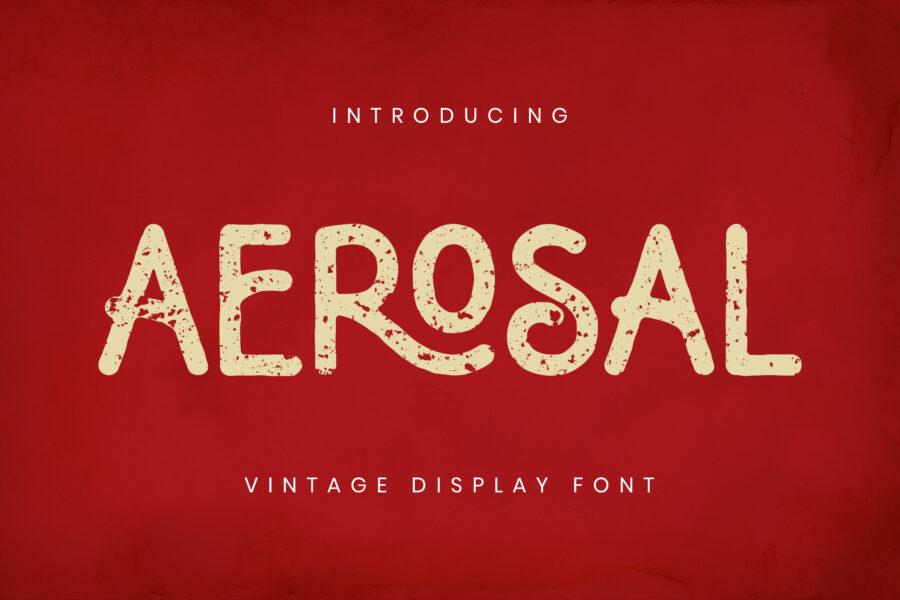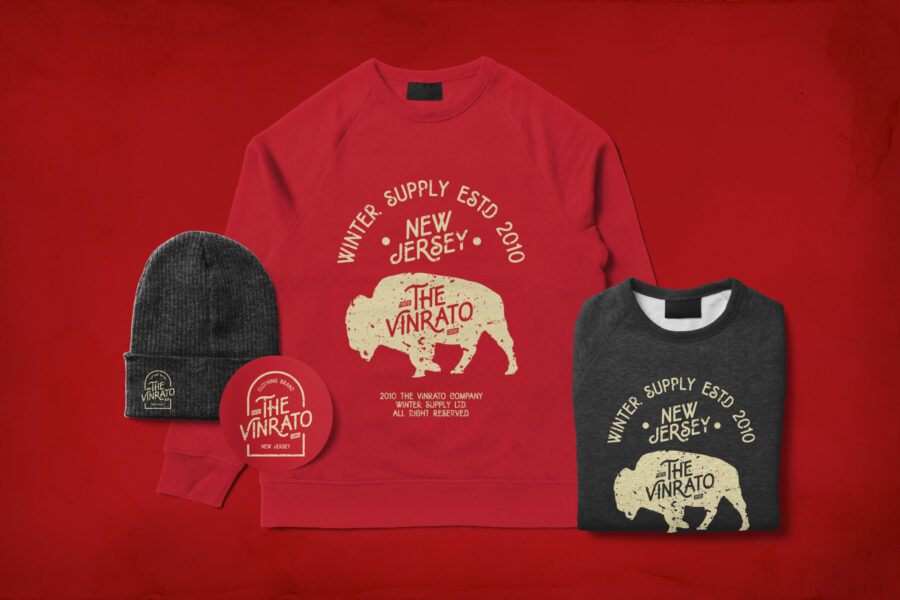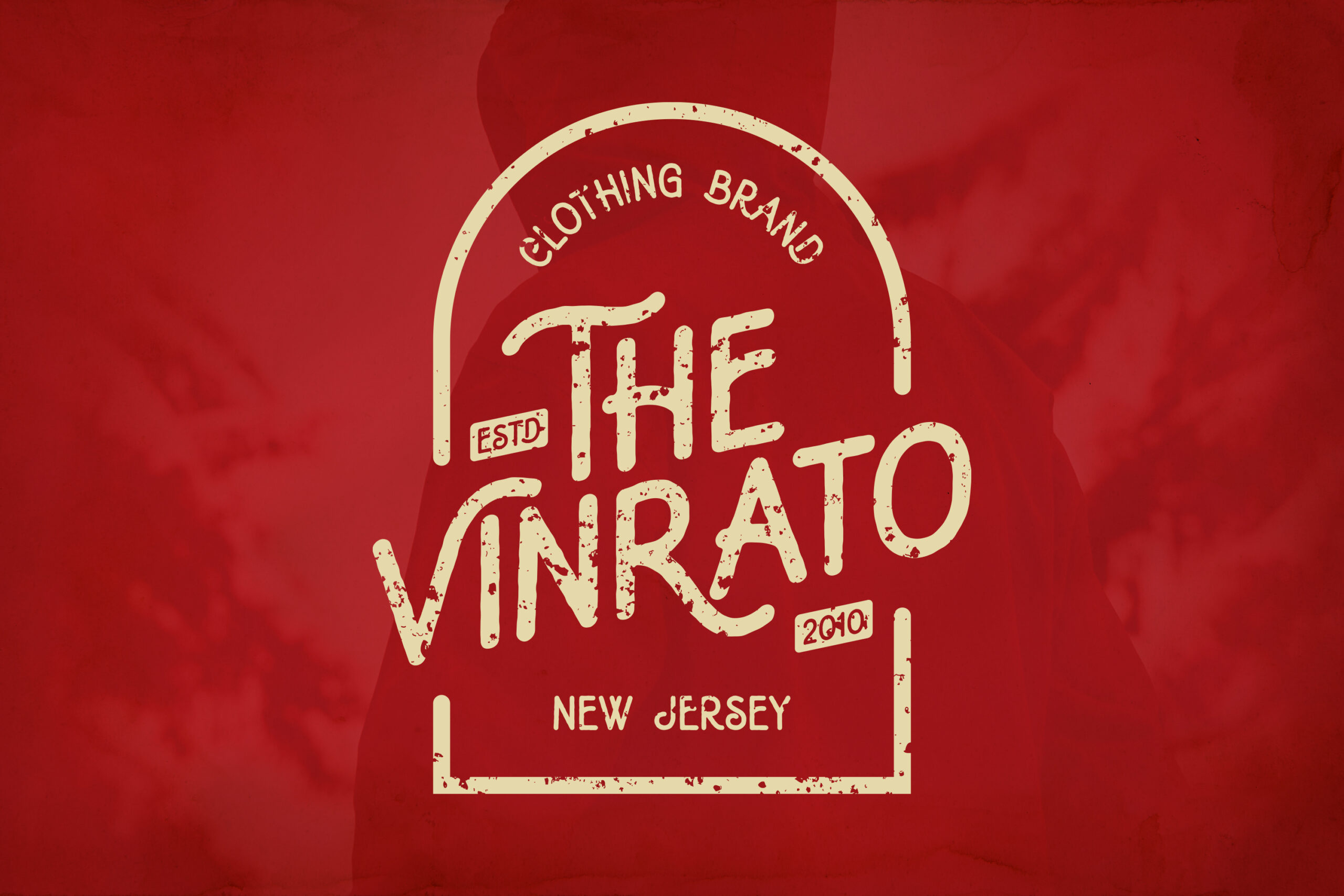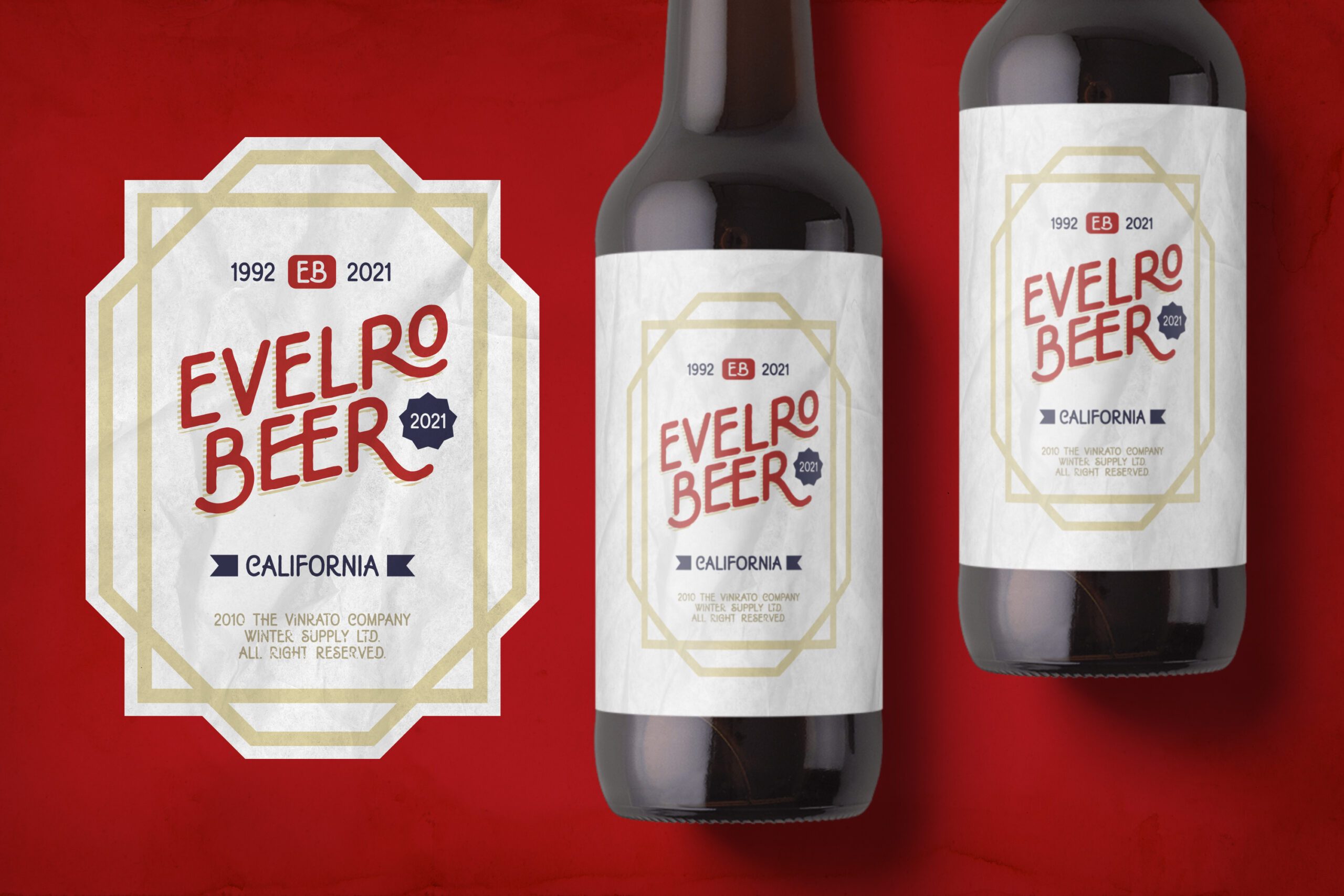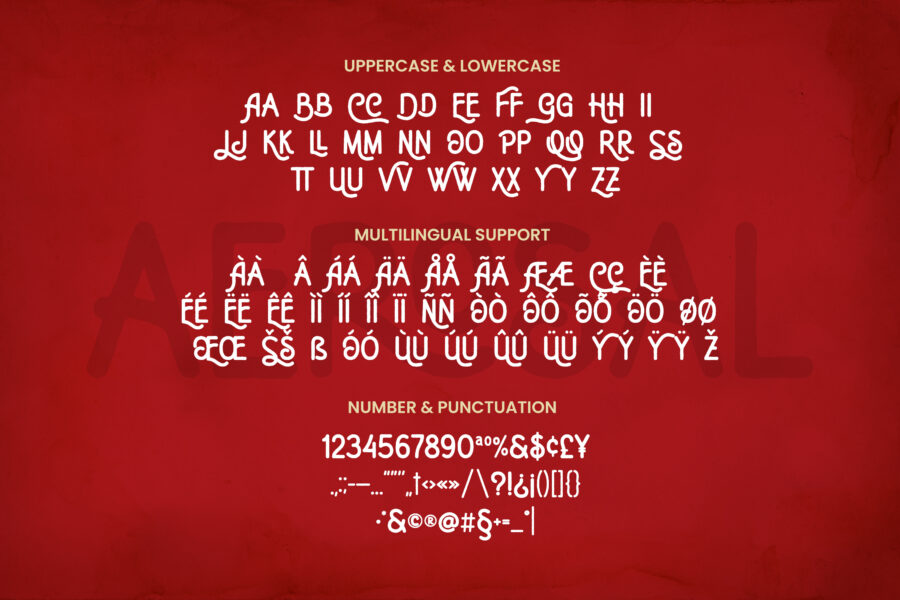
Aerosal is a bold and expressive vintage display font with a distressed texture that brings a rugged, retro character to your designs. The playful swirl on select characters combined with a weathered, grunge aesthetic makes this font ideal for vintage apparel, beer labels, badges, posters, and outdoor gear branding. It evokes a handcrafted charm and nostalgic strength that grabs attention while maintaining a grounded, authentic look.
This font includes uppercase, lowercase, multilingual support, numbers, and a full set of punctuation. Allowing wide usability across various projects and languages. Whether you’re designing merchandise, signage, or packaging with a rustic or Americana vibe, Aerosal adds the perfect balance of grit and character to elevate your visual identity.
Aerosal